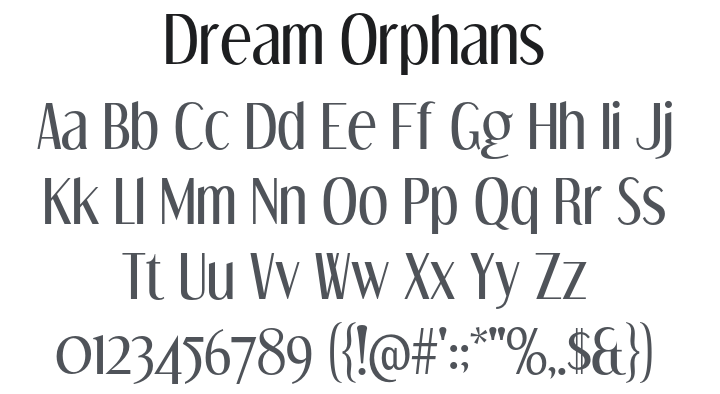
Dream Orphans Font Family
About Dream Orphans
Dream Orphans is a condensed humanist sans-serif headline typeface with a simple, homey warmth — its slightly quaggy curves give it a charming, approachable personality without feeling sloppy. Available in Regular, Italic, Bold, and Bold Italic, its tight spacing makes it ideal when headline space is tight. Perfect for book covers, editorial titles, branding, packaging, and any design needing friendly yet unpretentious typographic character.